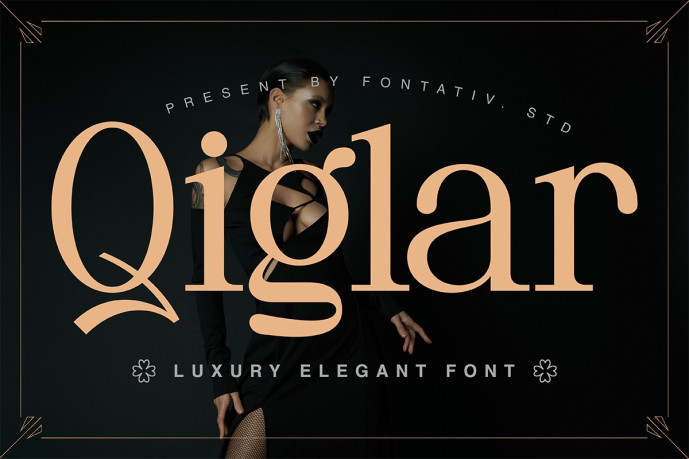
Qiglar Font
Designer: Fontativ
Qiglar Font is an elegant and luxurious typeface that combines refined serif shapes with graceful curves and sophisticated proportions. Designed to convey beauty, exclusivity, and timeless charm, it is perfect for luxury brands, fashion editorials, beauty products, cosmetic packaging, jewelry brands, wedding invitations, magazine layouts, high-end advertising, and premium visual identities. Its delicate details create an elegant and memorable presence while maintaining excellent legibility.
Available in two styles: regular and italic, Qiglar is versatile for creating both elegant headlines and expressive typographic compositions. With multilingual support and carefully crafted characters, this typeface is ideal for logos, product packaging, social media content, retail branding, skincare campaigns, and sophisticated design projects that require a luxurious and graceful aesthetic.